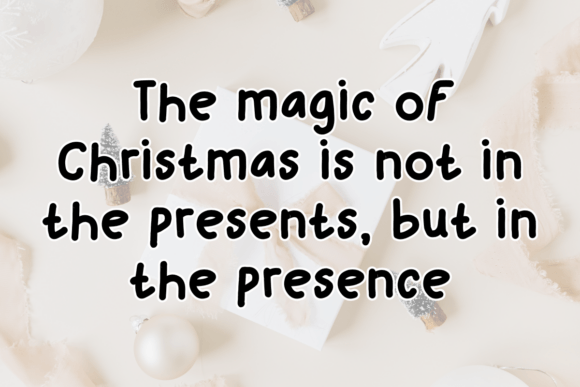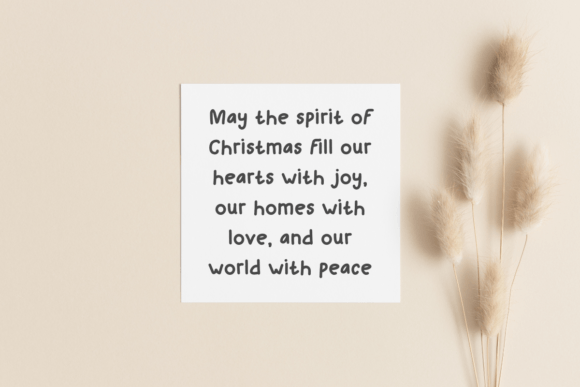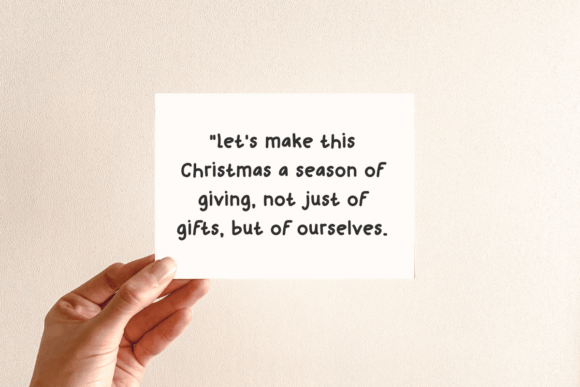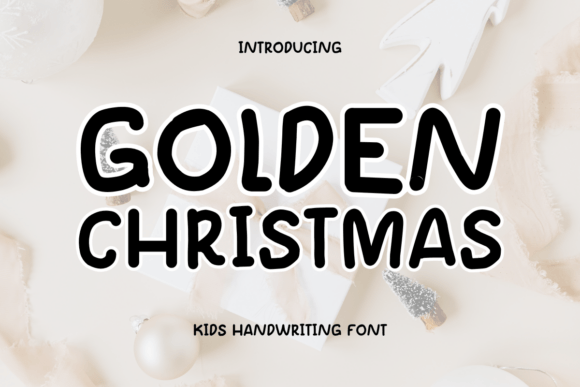
Introducing the Golden Christmas Font: A Festive and Playful Typeface for Creative Expression
Are you looking for a font that captures the essence of the holiday season? Do you want to add a touch of whimsy and playfulness to your designs, journals, or teaching materials? Look no further than the Golden Christmas font, a sans serif typeface that’s perfect for bringing joy and festivity to your creative projects.
A Font that’s a Match Made in Heaven for Journal Entries and Notes
If you’re a Kindle Direct Publishing (KDP) author or a journal enthusiast, you’ll love the Golden Christmas font. Its simple yet charismatic design makes it ideal for journal entries, notes, and personal reflections. The font’s playful vibe adds a touch of personality to your writing, making it perfect for scrapbooking, planners, and other creative projects.
A Whimsical Addition to Teaching Materials
Educators, take note! The Golden Christmas font is a great way to add some festive fun to your teaching materials. Whether you’re creating worksheets, lesson plans, or classroom decorations, this font is sure to bring a smile to your students’ faces. Its playful design makes it perfect for educational resources, activity sheets, and other learning materials.
Perfect for Memorable Quotes, Scrapbooks, and Planners
The Golden Christmas font is also ideal for creating memorable quotes, scrapbooks, and planners. Its simplicity and charisma make it easy to read and understand, while its playful design adds a touch of personality to your creations. Whether you’re creating a inspirational quote, a memory book, or a daily planner, this font is sure to help you express your thoughts in a creative and engaging way.
Add a Heartwarming Touch to Your Memos and Greeting Cards
Want to add a personal touch to your memos, greeting cards, or letters? The Golden Christmas font is the perfect choice. Its festive design and playful vibe make it ideal for creating heartwarming and engaging communications. Whether you’re sending a holiday greeting, a birthday message, or a thank-you note, this font is sure to make your recipient feel special.
Unlock a World of Creative Possibilities
The Golden Christmas font is more than just a typeface – it’s a creative tool that can help you express yourself in new and exciting ways. With its playful design and festive vibe, this font opens up a world of possibilities for designers, crafters, and writers. Whether you’re creating digital art, crafting handmade cards, or writing a journal entry, the Golden Christmas font is the perfect choice.
Key Features of the Golden Christmas Font
- Playful sans serif typeface
- Ideal for journal entries, notes, and personal reflections
- Perfect for teaching materials, educational resources, and activity sheets
- Great for creating memorable quotes, scrapbooks, and planners
- Adds a heartwarming touch to memos, greeting cards, and letters
- Simple yet charismatic design
In conclusion, the Golden Christmas font is a versatile and playful typeface that’s perfect for bringing joy and festivity to your creative projects. Whether you’re a designer, crafter, or writer, this font is sure to inspire you to new heights of creativity. So why wait? Download the Golden Christmas font today and start exploring a world of creative possibilities!